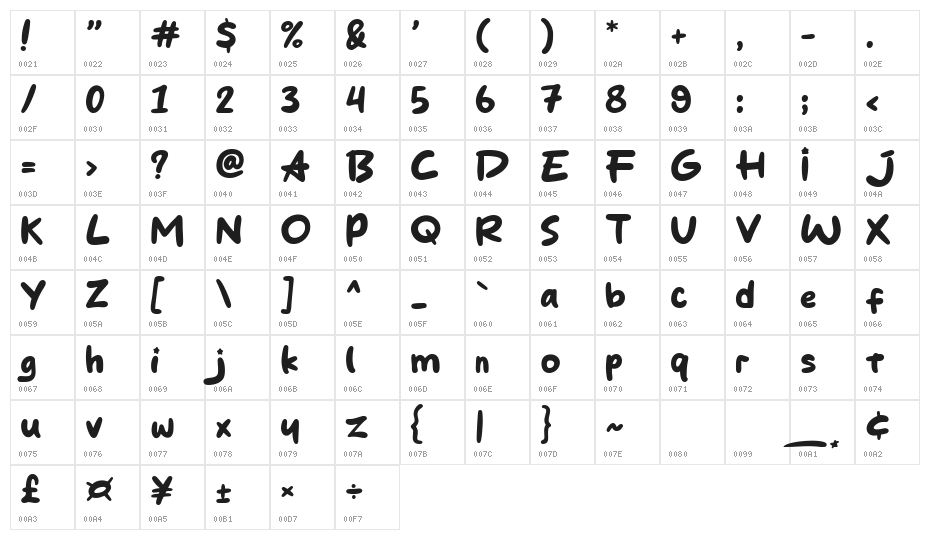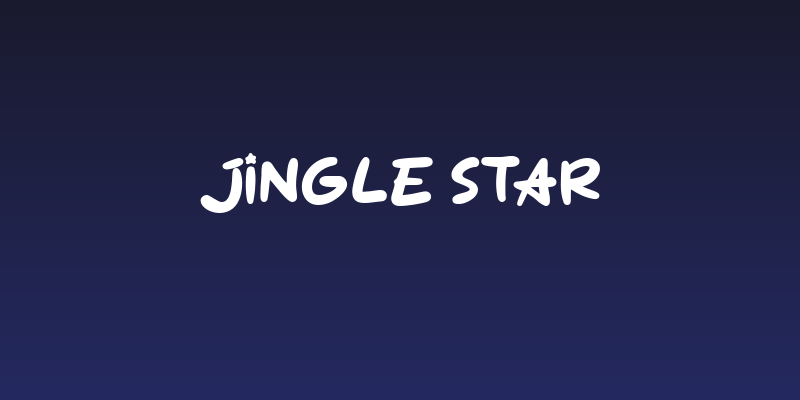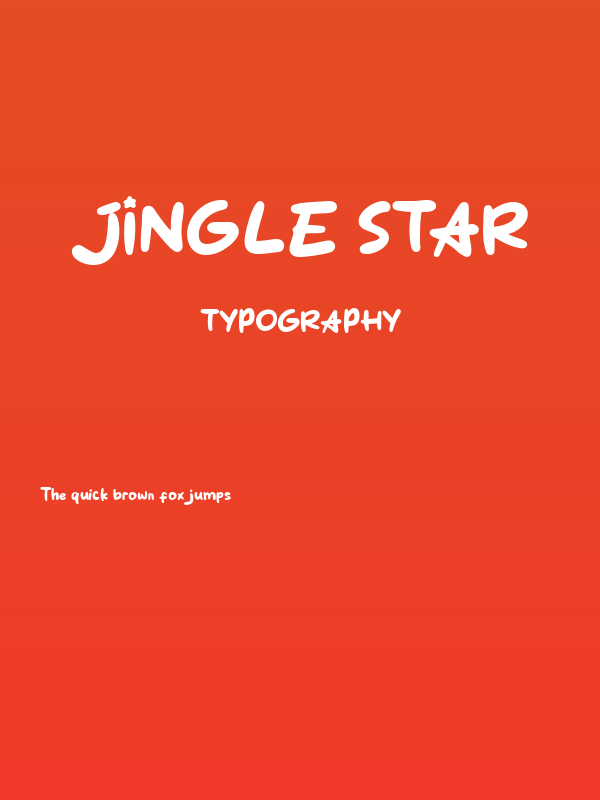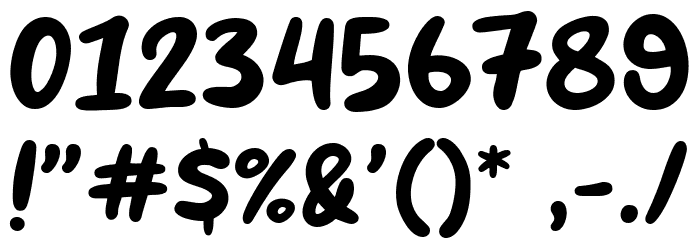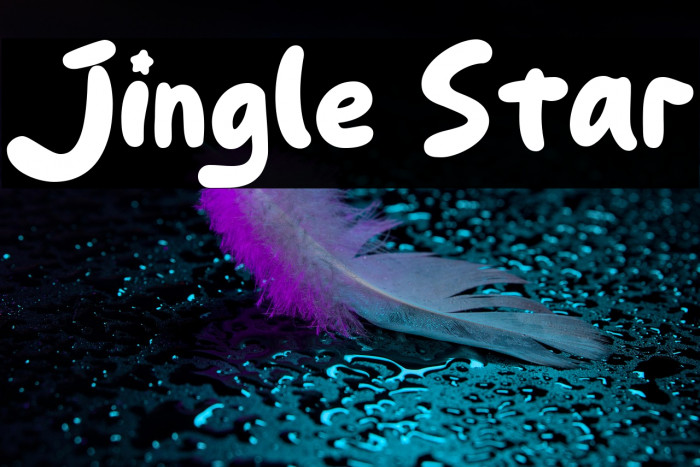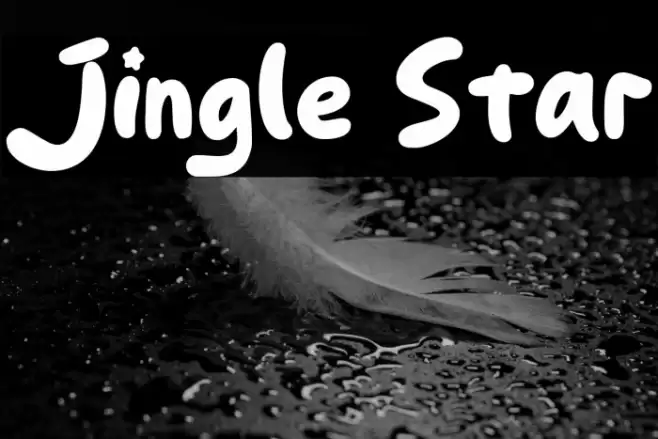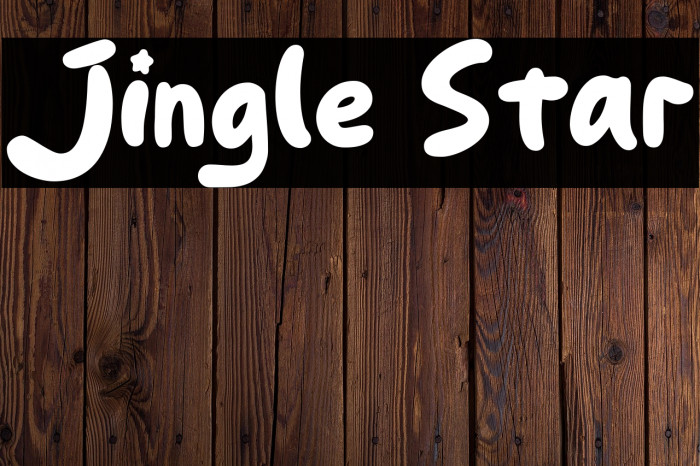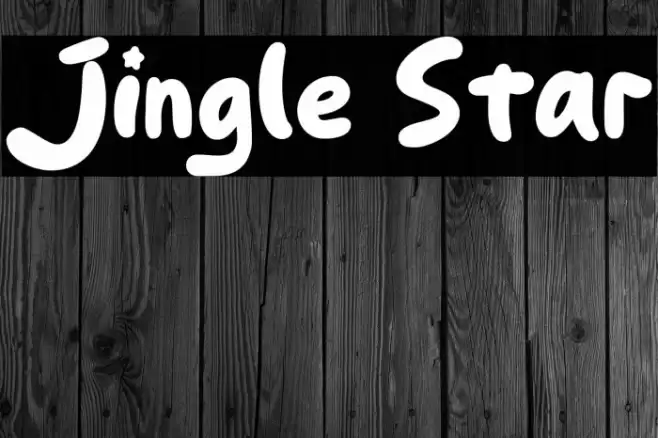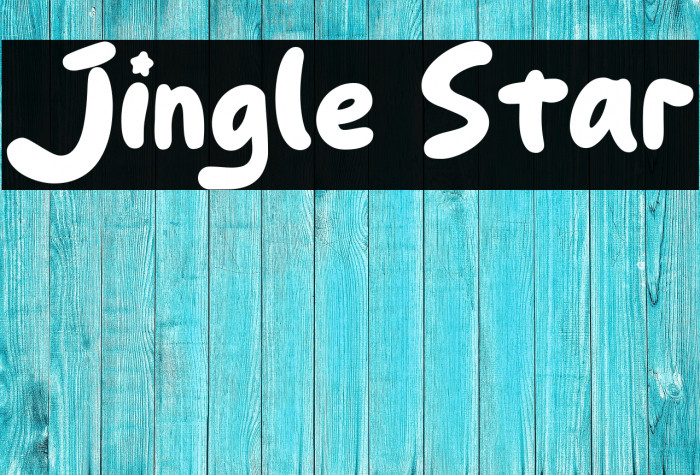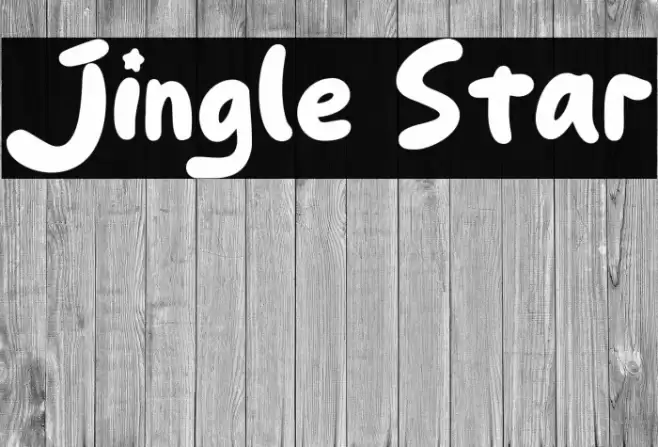
Jingle Star Font
Jingle Star Description
This playful and whimsical font features bold, rounded characters with a hand-drawn appearance. The letters are slightly irregular, adding a sense of fun and spontaneity. The font includes unique details, such as star accents on certain letters, enhancing its playful nature. It is highly legible with a consistent stroke width, making it suitable for various creative projects. The numbers and special characters maintain the same lively style, ensuring a cohesive look across all text elements.
| Overall Style | Playful |
| Proposed Projects | Ideal for children's books, playful branding, party invitations, and creative posters. |